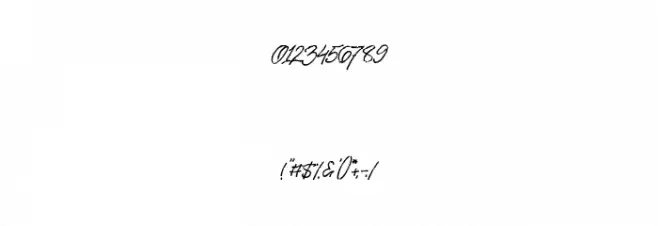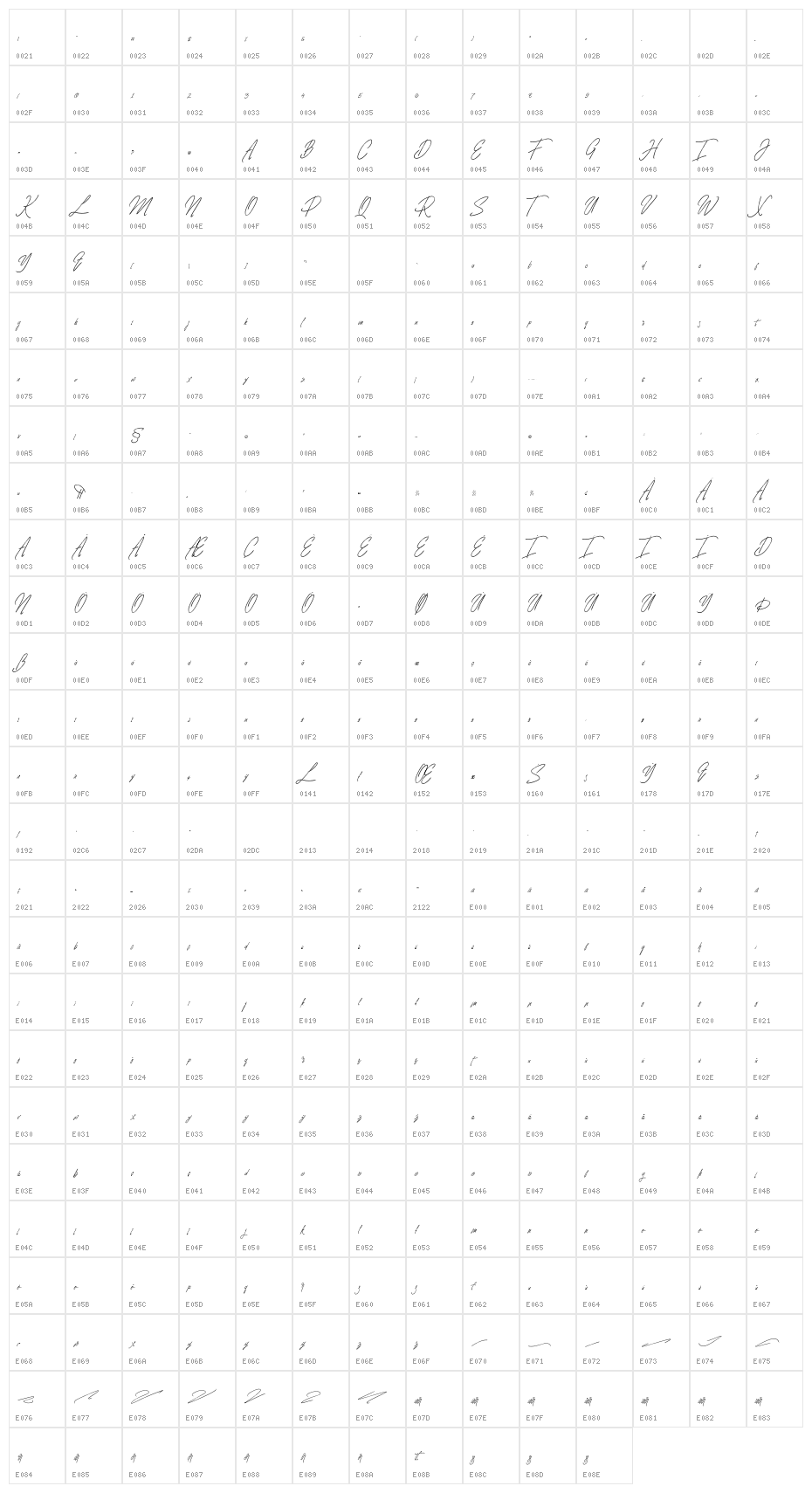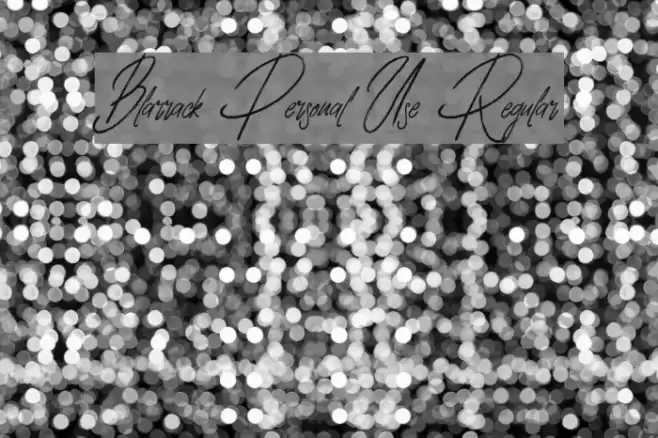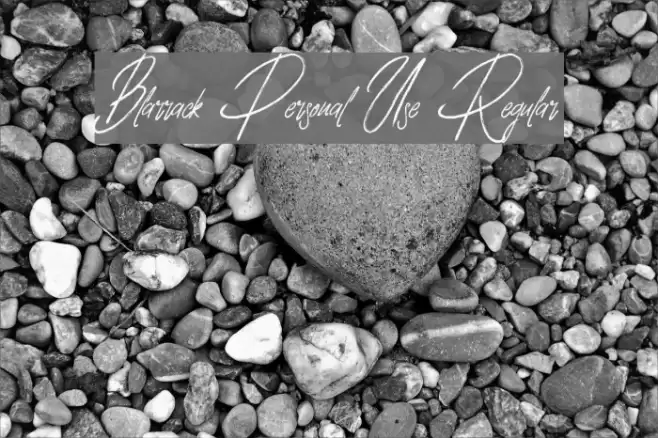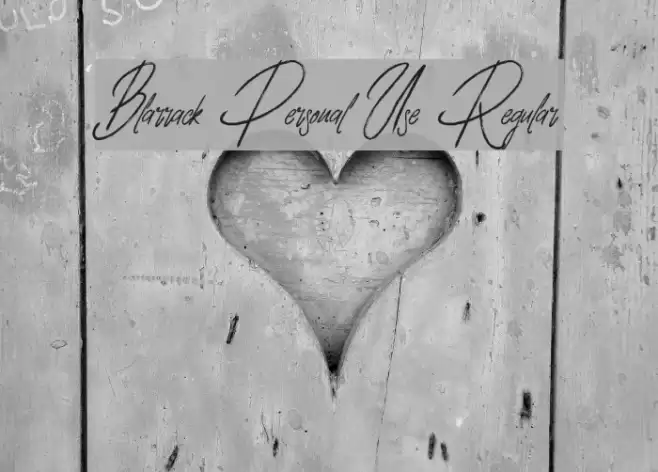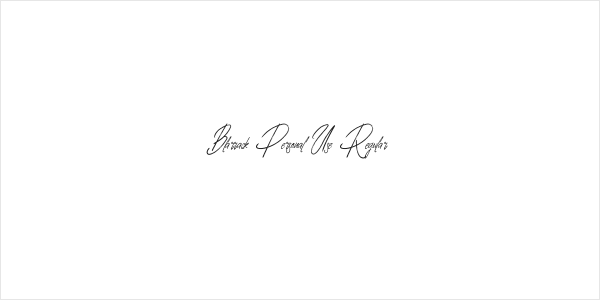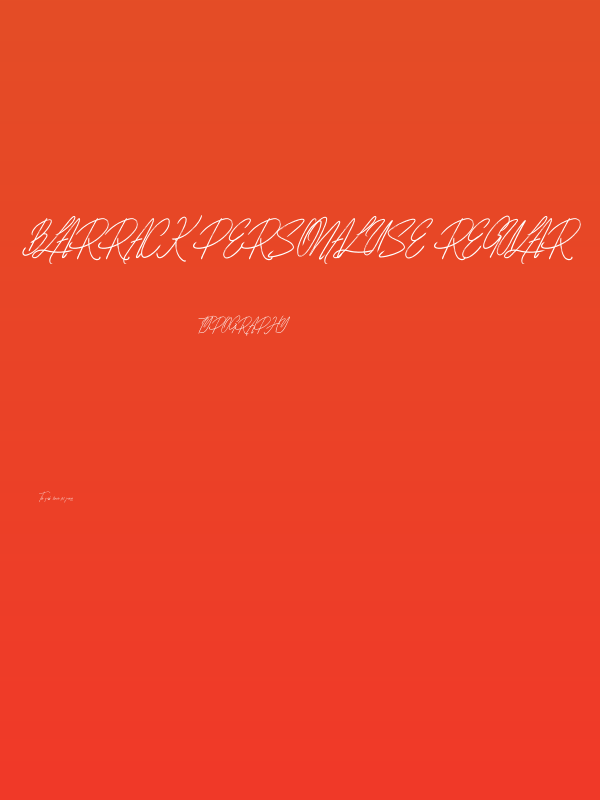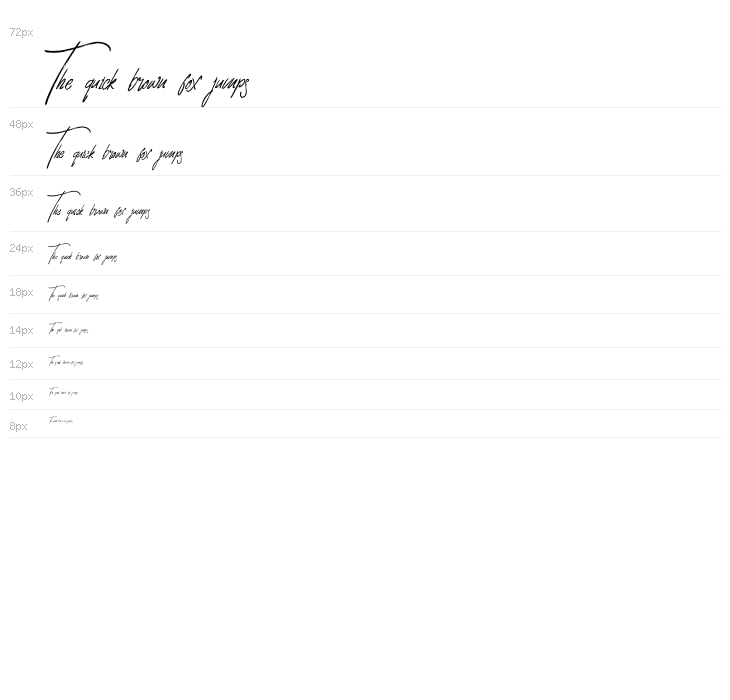
Blarrack Personal Use Regular Font
Blarrack Personal Use Regular Description
This font features an elegant and flowing script style, characterized by its cursive, handwritten appearance. The letters are interconnected with smooth, sweeping lines that give it a dynamic and sophisticated look. The uppercase letters are bold and prominent, while the lowercase letters maintain a consistent flow, enhancing readability. The numerals and special characters are designed to match the overall aesthetic, ensuring a cohesive appearance across all text. This font is ideal for creating a personal and artistic touch in any design project.